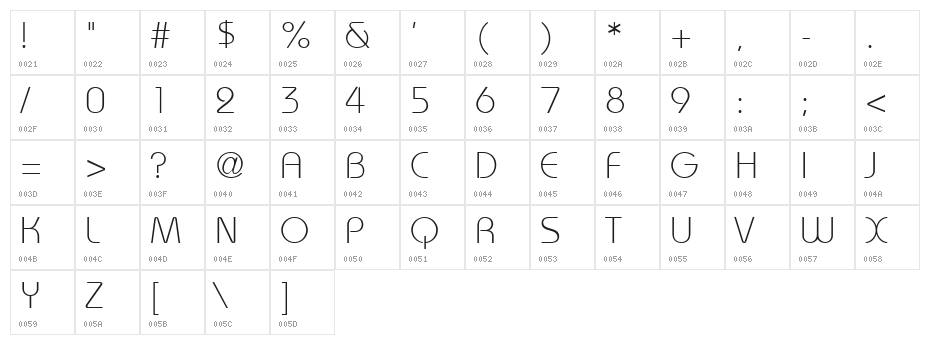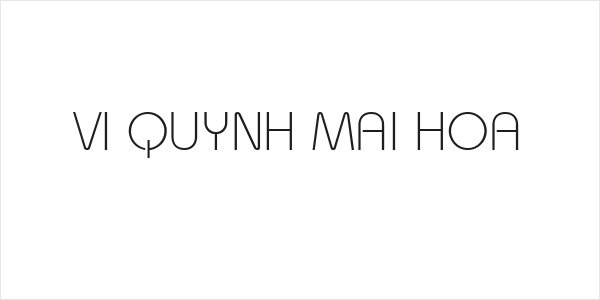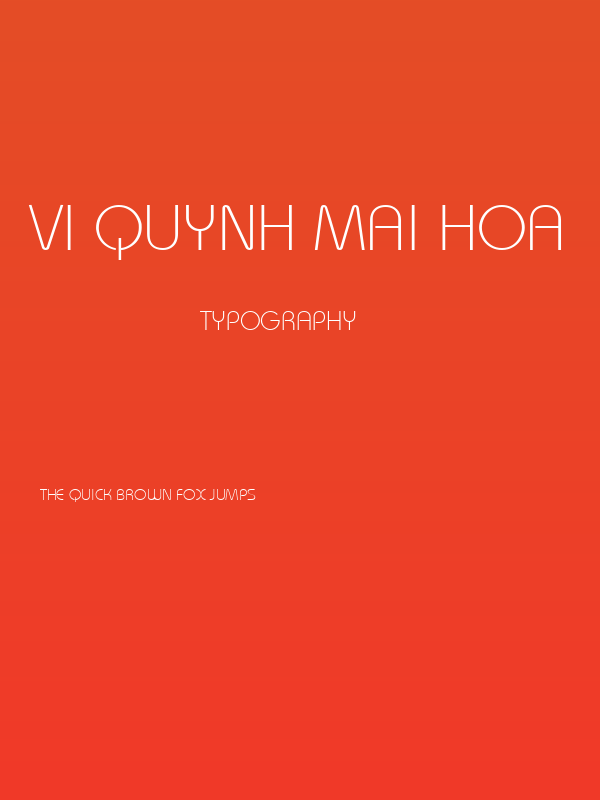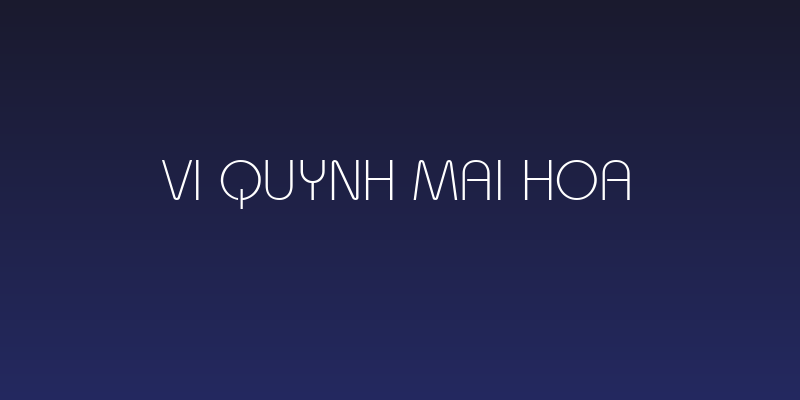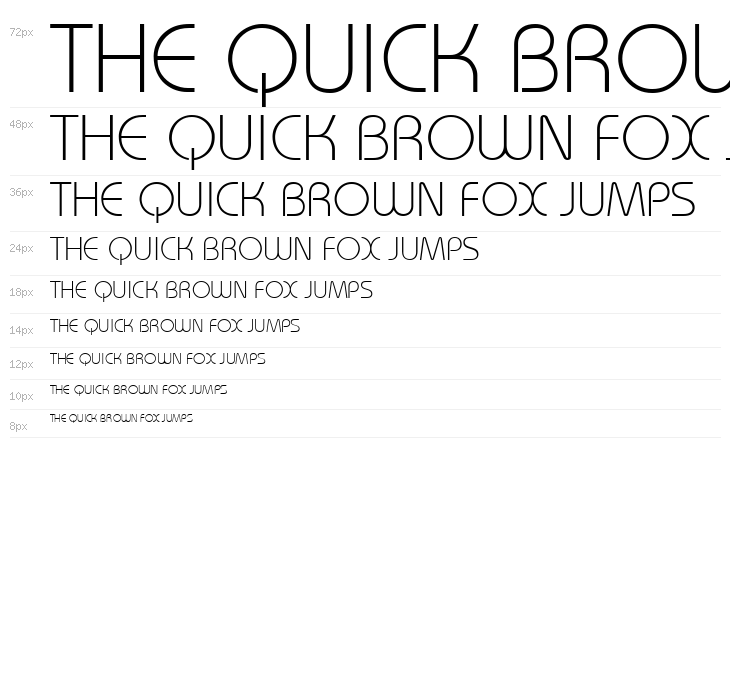
VI Quynh Mai Hoa Font
VI Quynh Mai Hoa Description
This font features a sleek and modern design with clean lines and a geometric structure. The characters are uniform in width, creating a harmonious and balanced appearance. The uppercase and lowercase letters share a consistent style, with rounded edges and a minimalist aesthetic. The numerals and special characters maintain the same design principles, ensuring a cohesive look across all elements. This font is highly legible, making it suitable for a variety of applications where clarity and style are essential.
| Use Case | Headlines, Logos, Digital media |
| Proposed Projects | Ideal for branding, advertising, and digital media projects where a contemporary and stylish look is desired. |